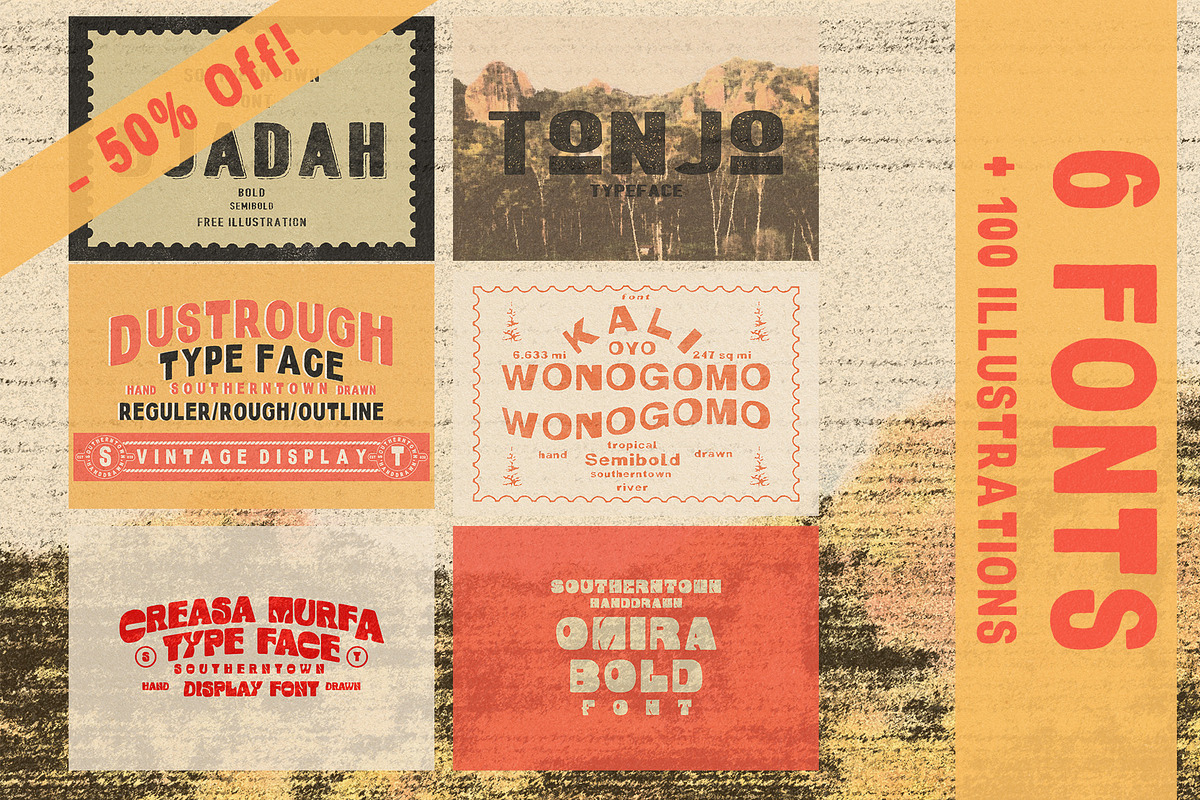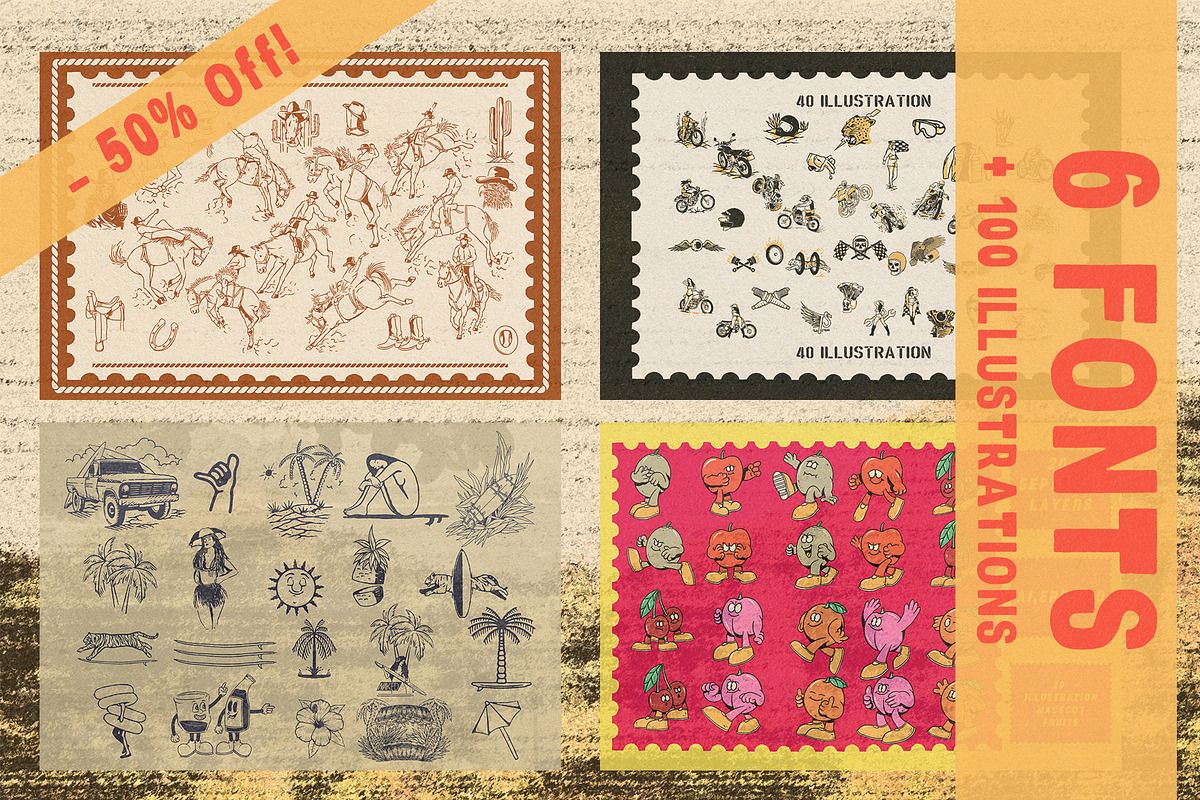
Vintage Font & Illustration Mega Bundle – 6 Fonts + 100 Hand-Drawn Illustrations
The ultimate gift for retro design lovers! This bundle features six unique fonts with distinctive vintage and mid-century characters, combined with 100 handmade illustrations with classic themes ready to enhance your creative projects.
6 Unique Fonts: ranging from bold, semi-bold, to hand-drawn display fonts, perfect for posters, branding, packaging, and statement typography.
100 Handmade Illustrations: Divided into several themes such as Western Cowboy, Vintage Motorcycle & Objects, Surf & Beach Vibes, and Cute Mascot Characters.
Retro-psychedelic style with a touch of authentic vintage texture.
Ideal for concert posters, product labels, t-shirt designs, editorials, and social media.
All fonts and illustrations are original hand-drawn with carefully preserved details.